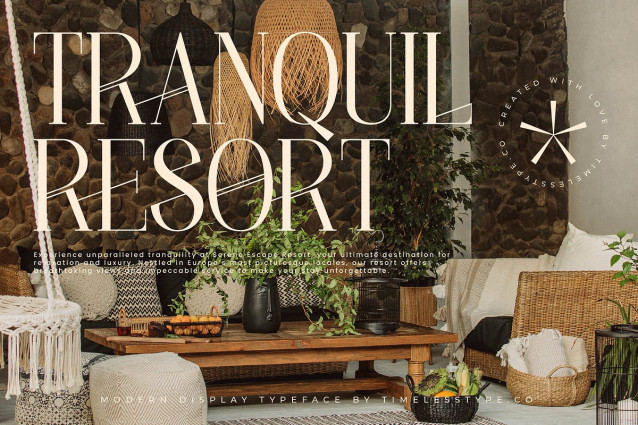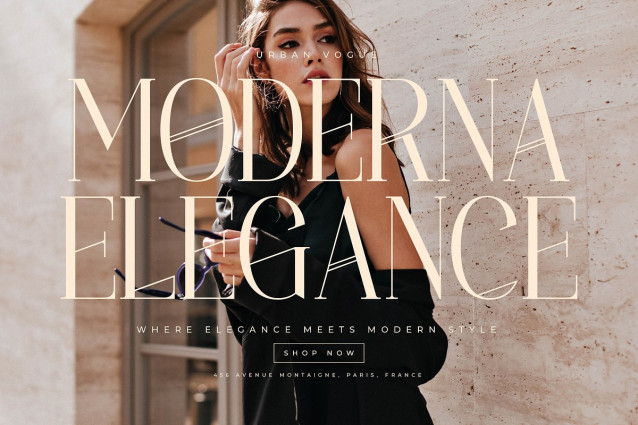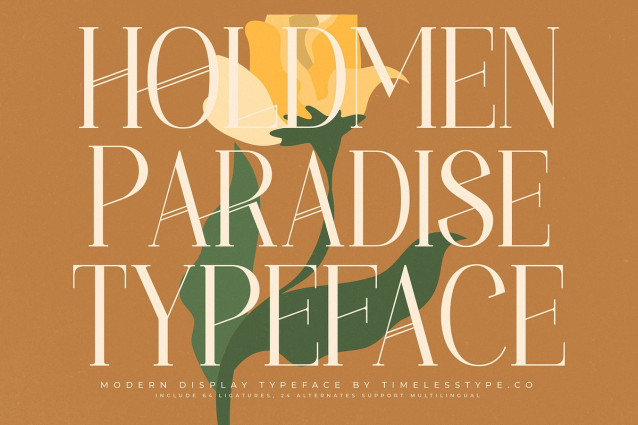
Holdmen Paradise Font
Holdmen Paradise Font – Modern Display Typeface , from Timelesstype.Co, Embrace a world of effortless grace and artistic flair with Holdmen Paradise, a typeface designed to elevate every word into a visual masterpiece. This font speaks to the soul of design, offering a timeless aesthetic that captivates at first glance.
Inspired by the organic beauty of botanical gardens and the refined geometry of mid-century high fashion, it carries an aura of natural sophistication. It evokes the feeling of a sun-drenched afternoon where art and nature converge in perfect harmony.
Characterized by a high-contrast serif structure and tall, slender proportions, this modern serif display brings a sense of luxury typography to the digital canvas. It serves as an editorial font that demands attention while maintaining a delicate, branding impact through its unique character shapes.
Tapping into the current modern serif trend, this typeface aligns perfectly with the shift towards editorial display fonts that prioritize personality over simplicity. It is the definition of character-driven typography, making it a staple for designers looking to break away from traditional minimalism.